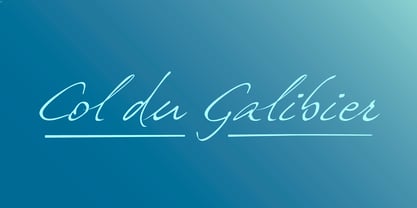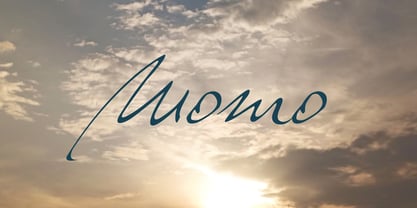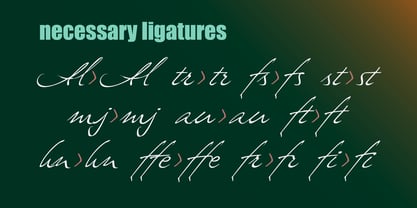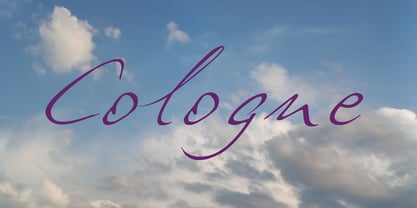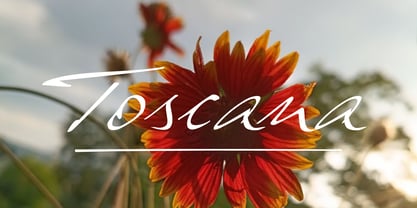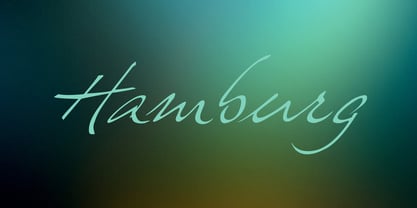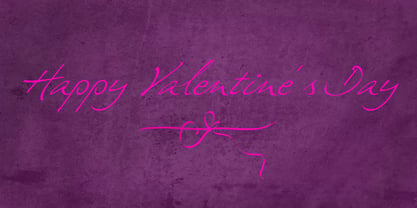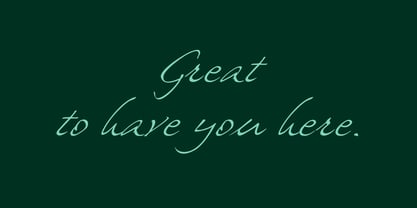
Elias
by Typemotion
The Elias Font Family
was designed by
Sebastian Wieland
and published by
Typemotion. Elias contains
1
styles.
Elias is a digital version of my own handwriting.
Designers: Sebastian Wieland
Publisher: Typemotion
Foundry: Typemotion
Design Owner: Typemotion
About Typemotion
Typemotion is the personal foundry of designer Sebastian Wieland.